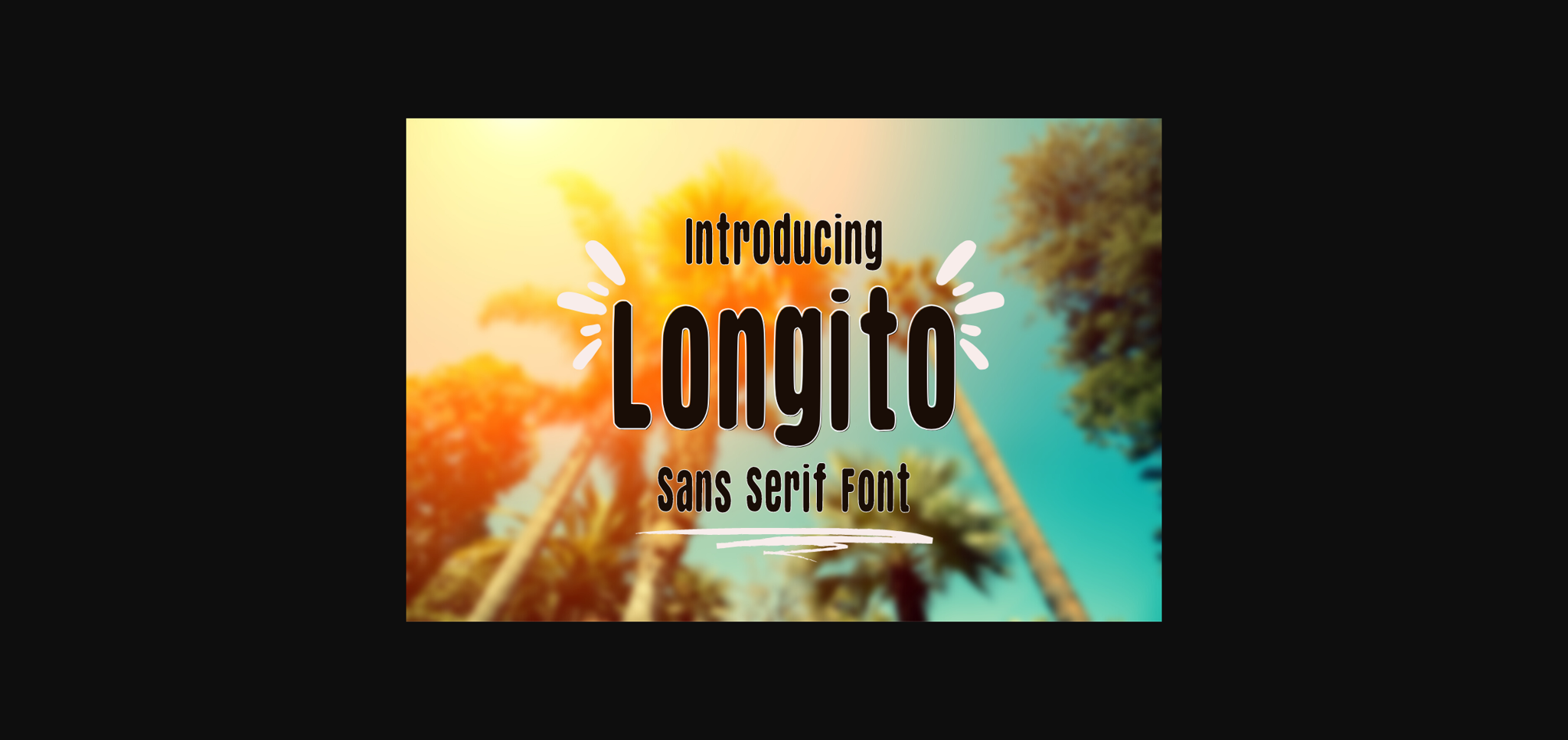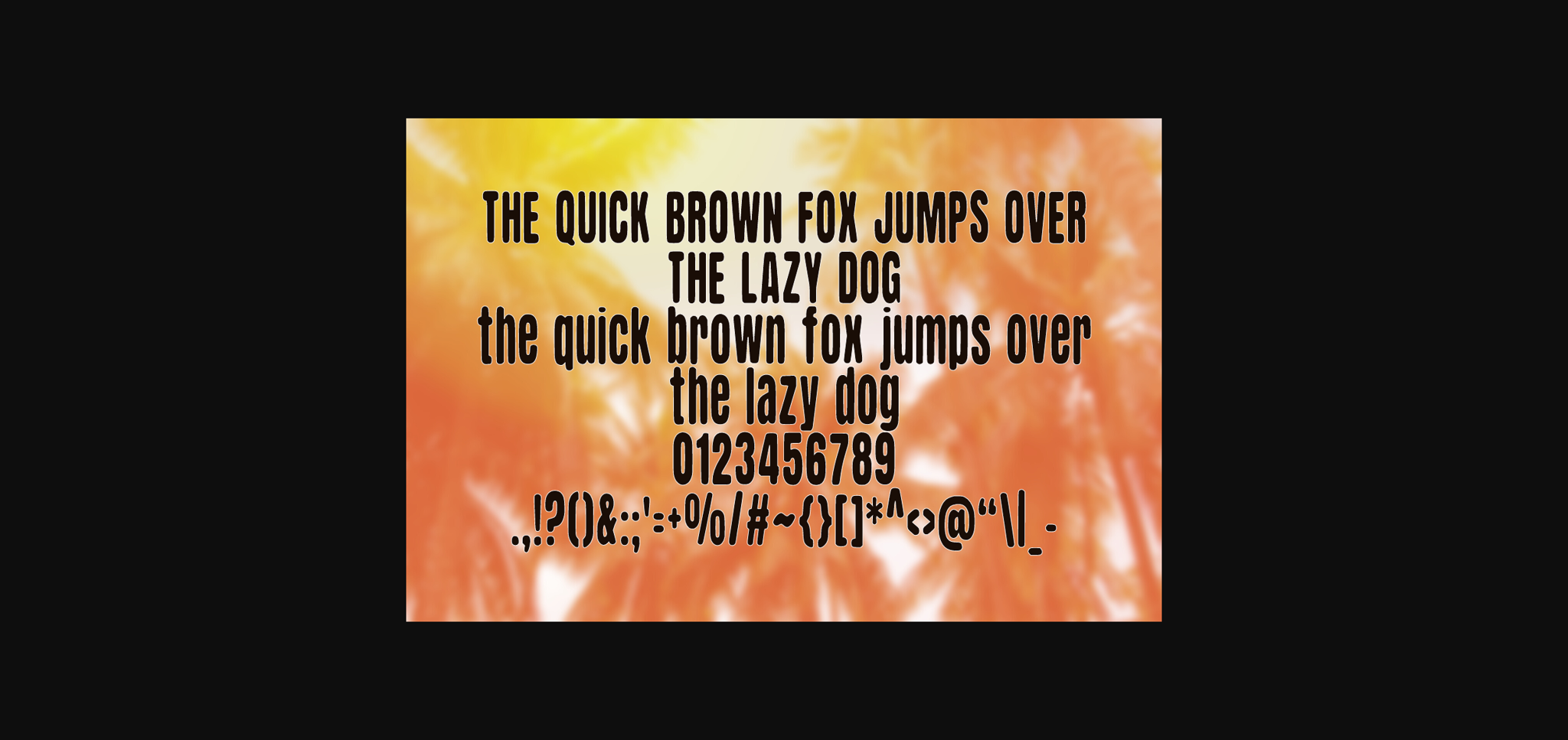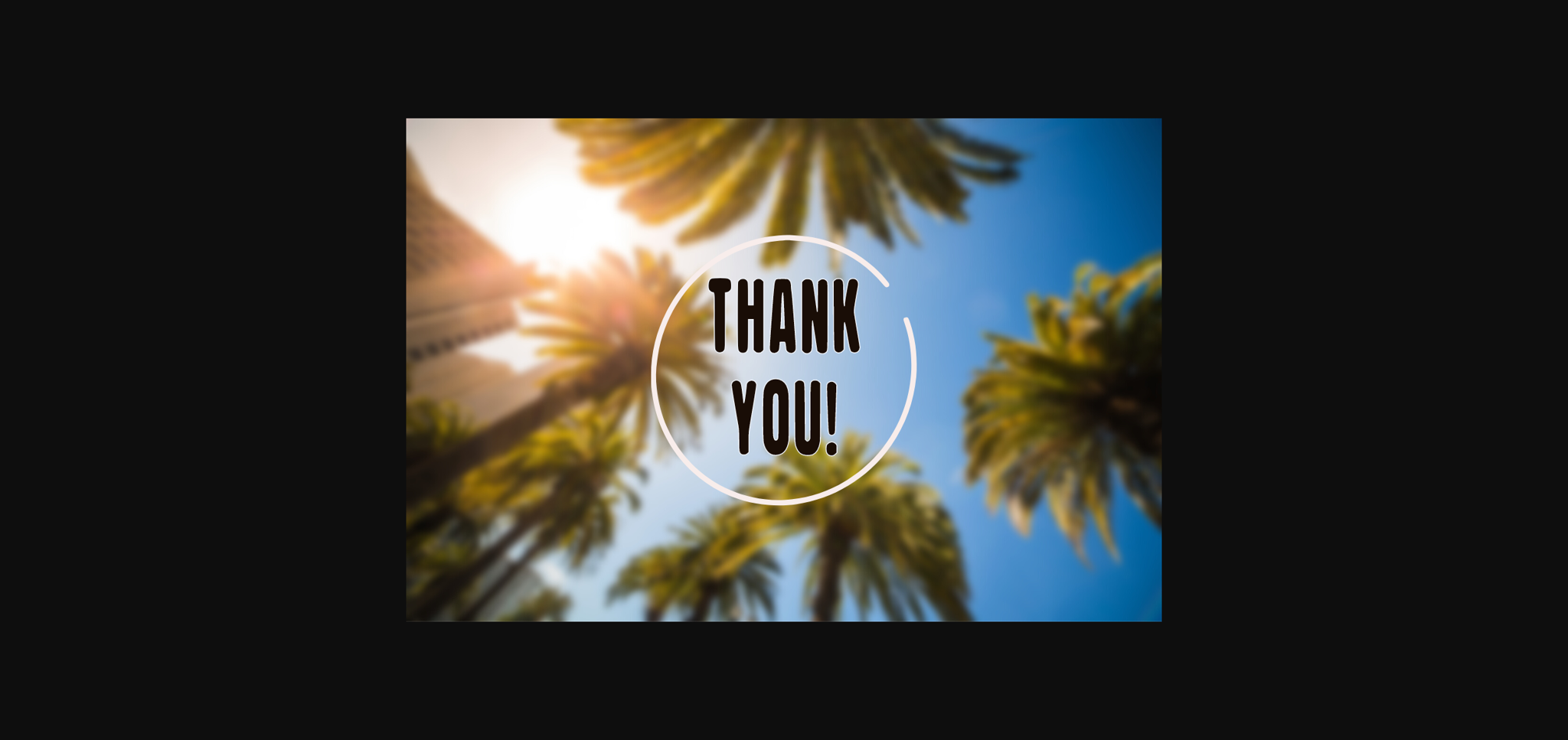
Longito Font
About Longito Font
Longito is a neat, tall, and sleek sans-serif font with nicely rounded corners. It will be perfect for most formal and informal projects.
It can be used for articles, social media, invitations, cards, logos, headlines, and any other design.